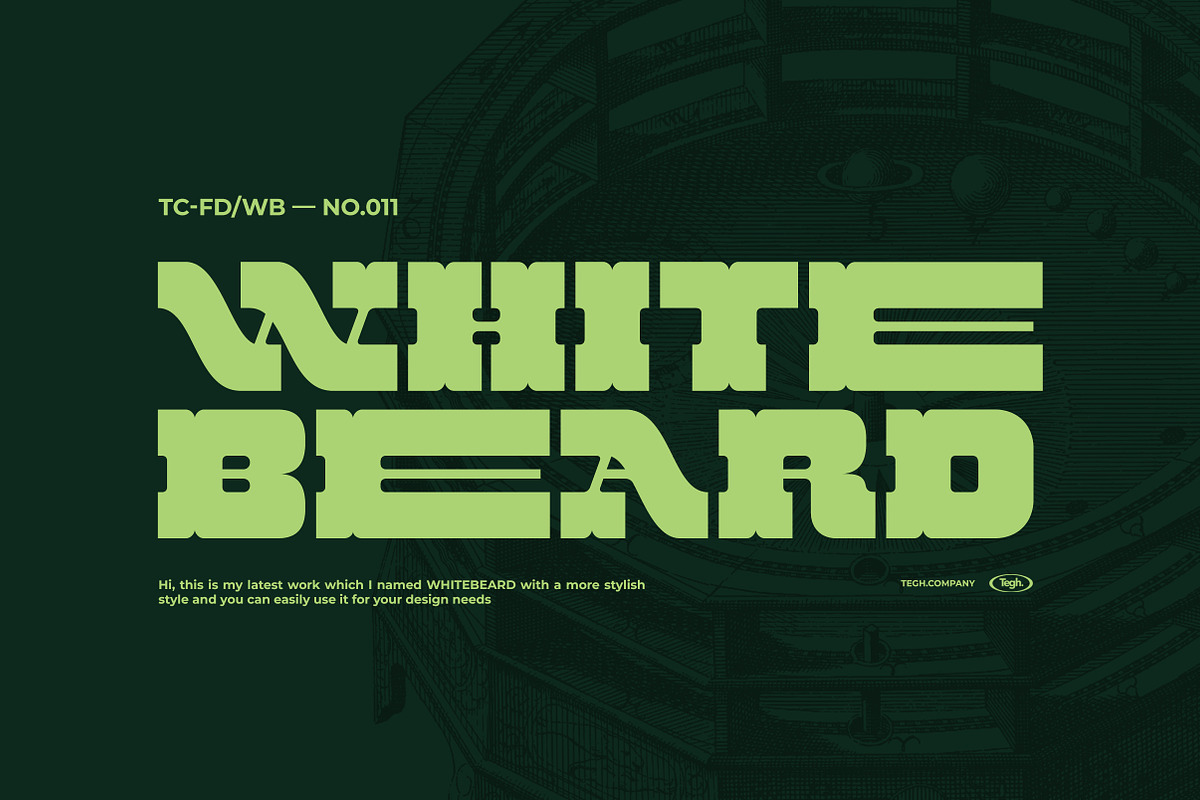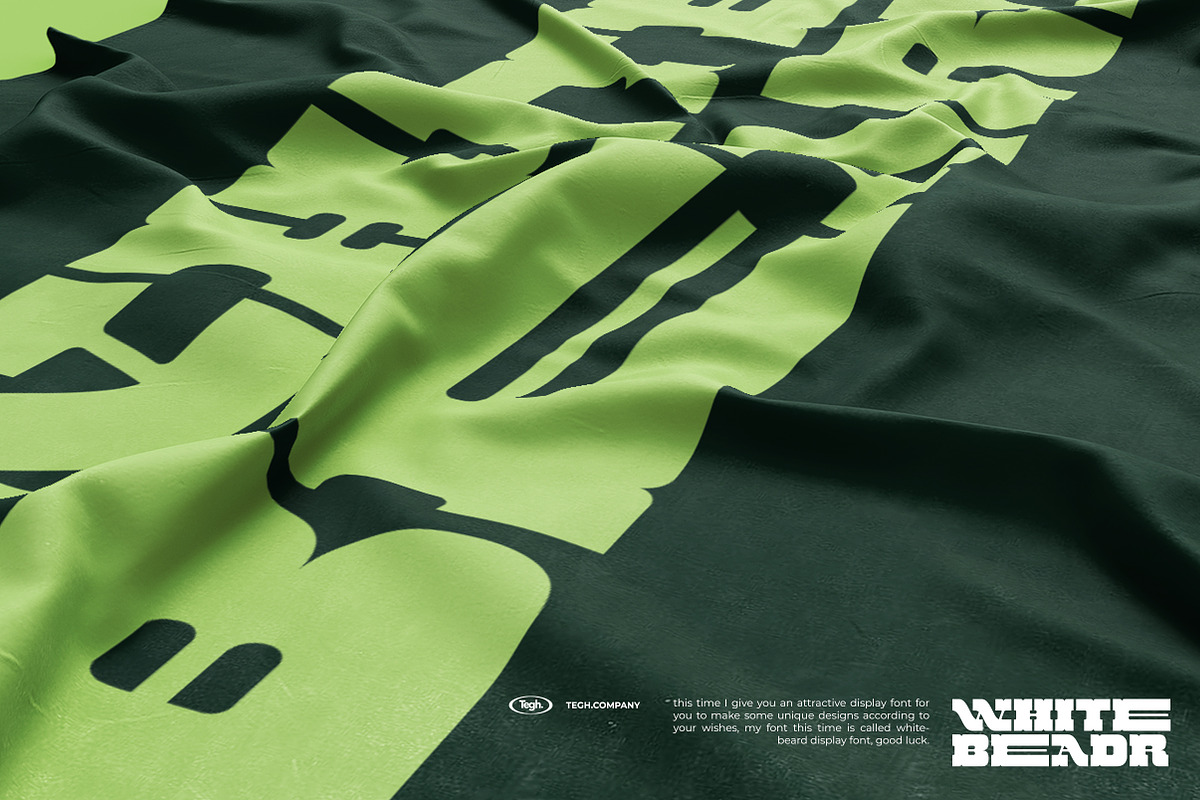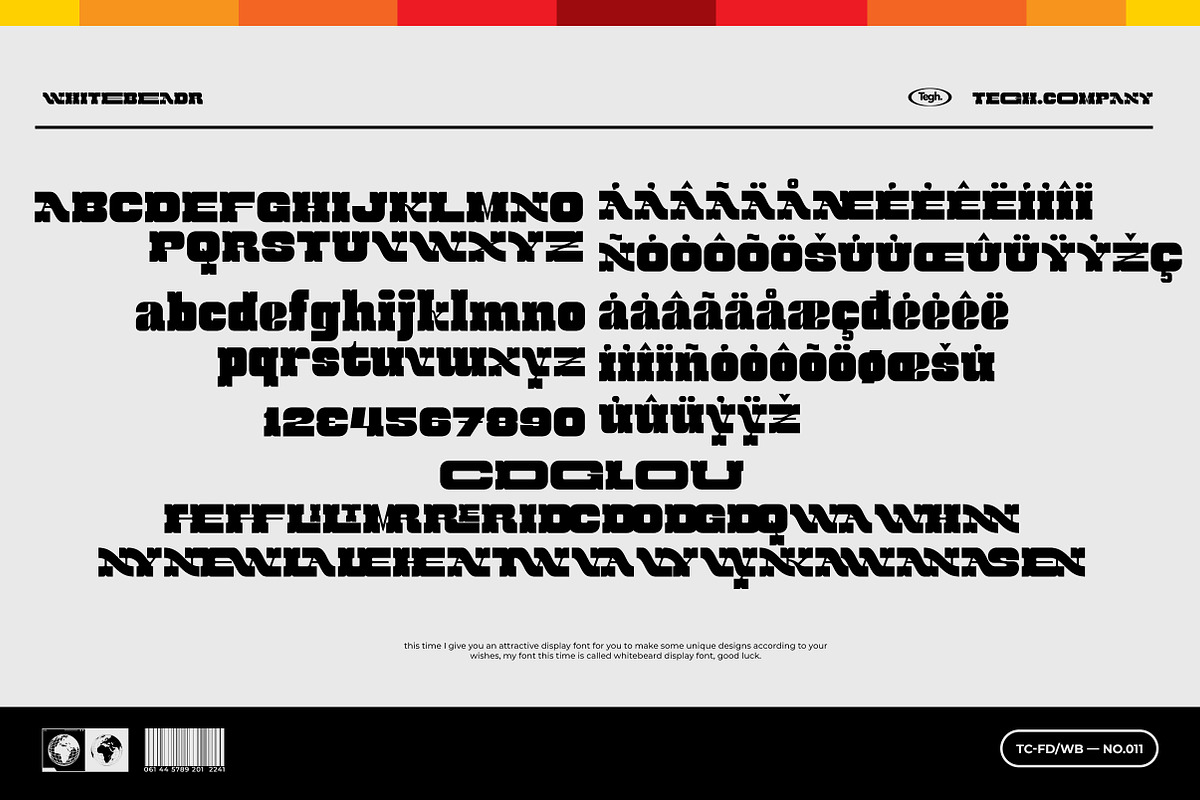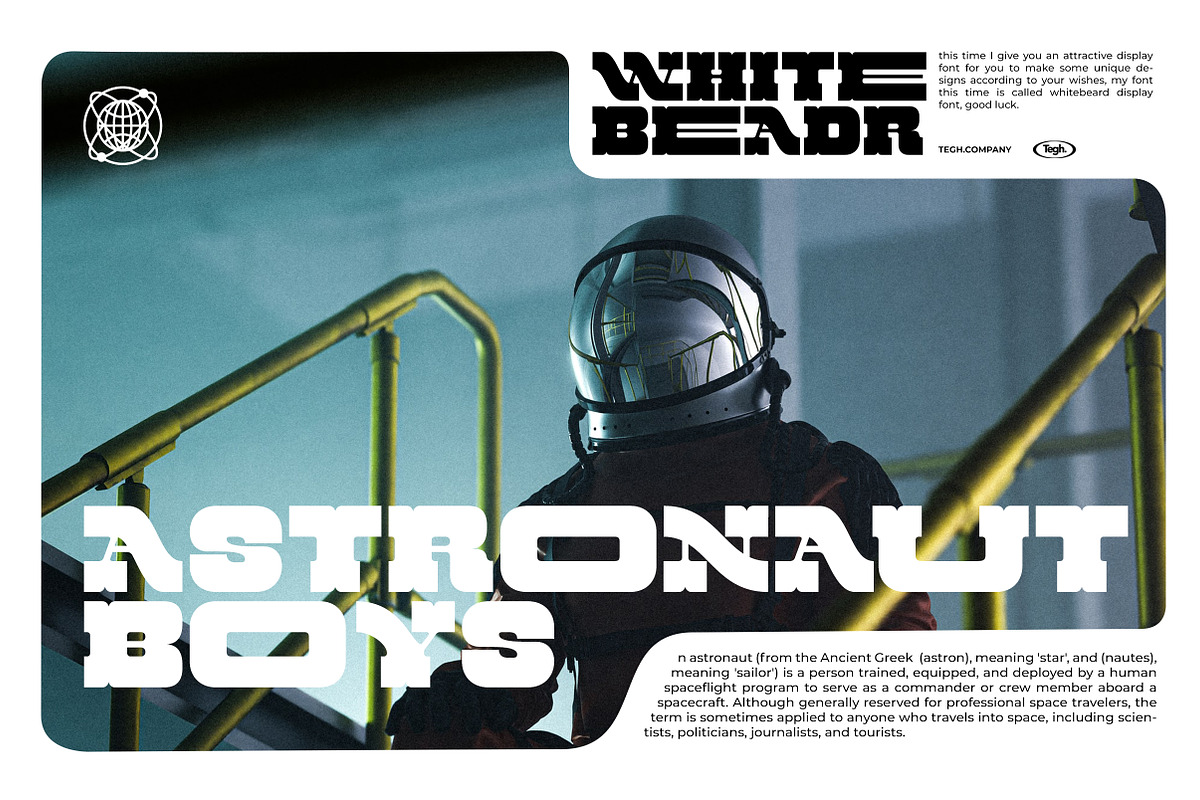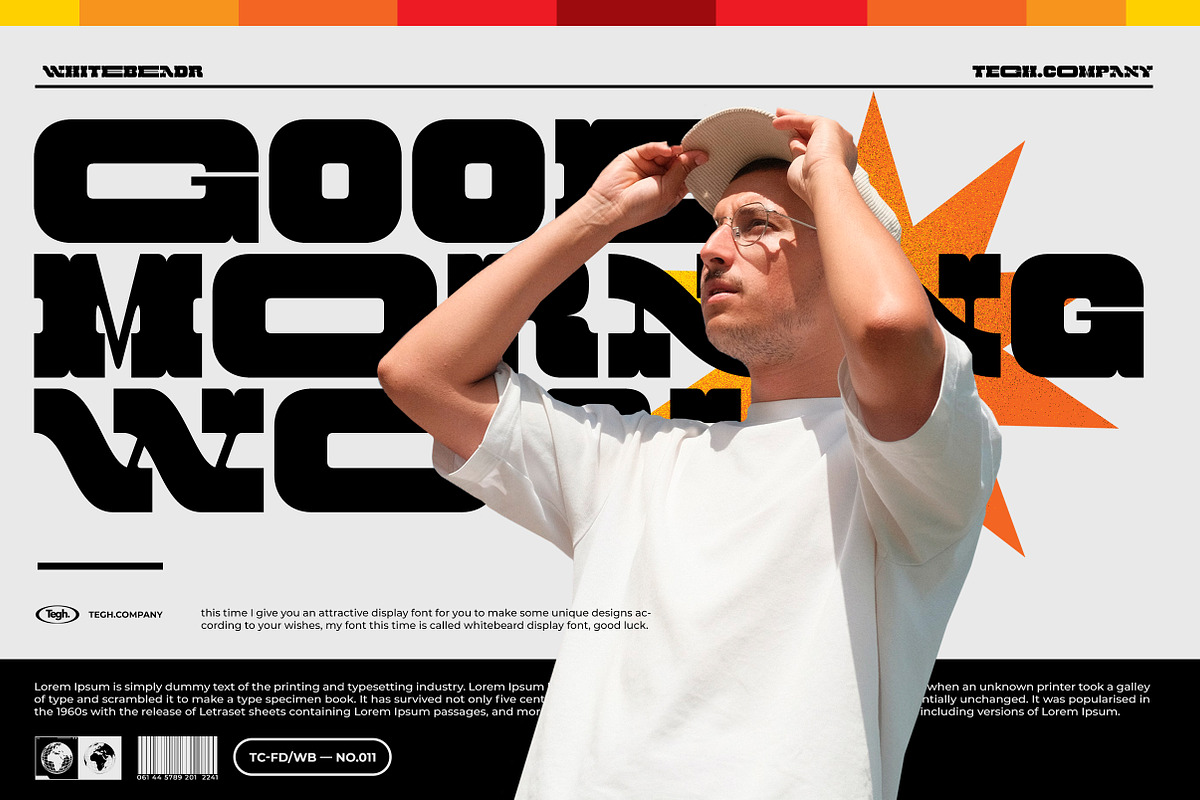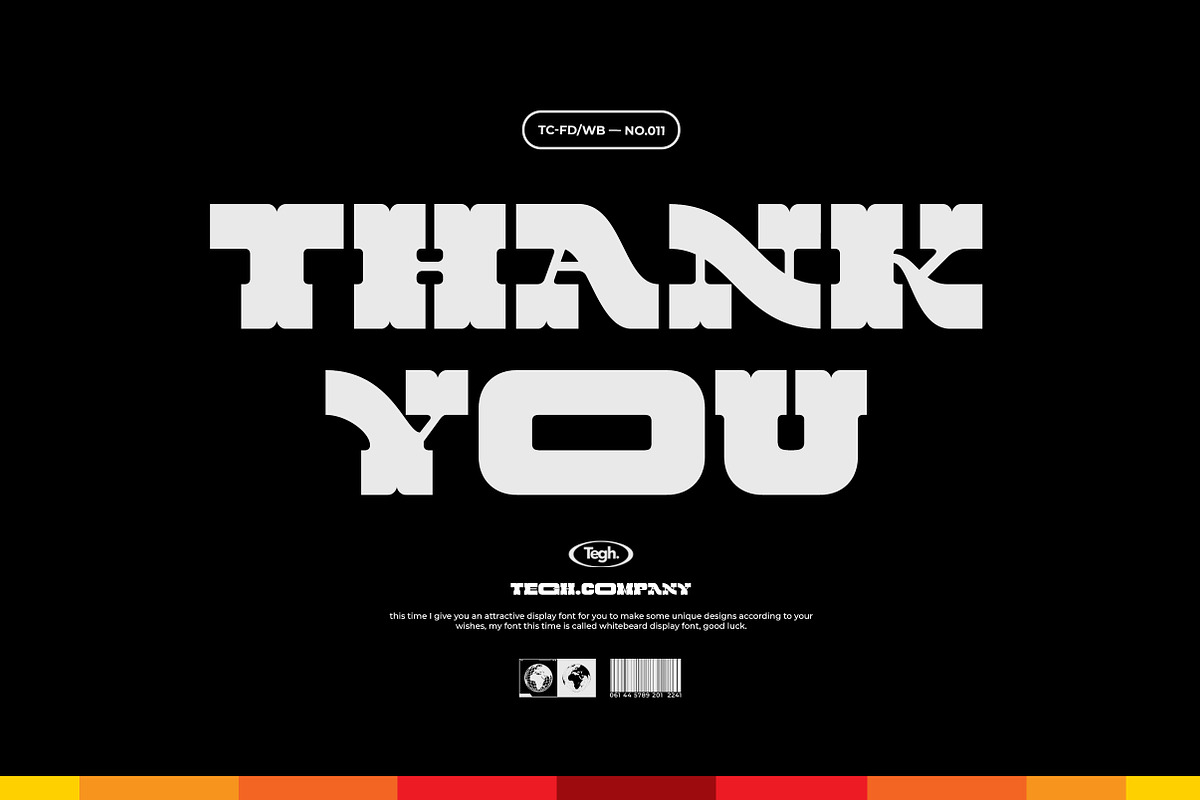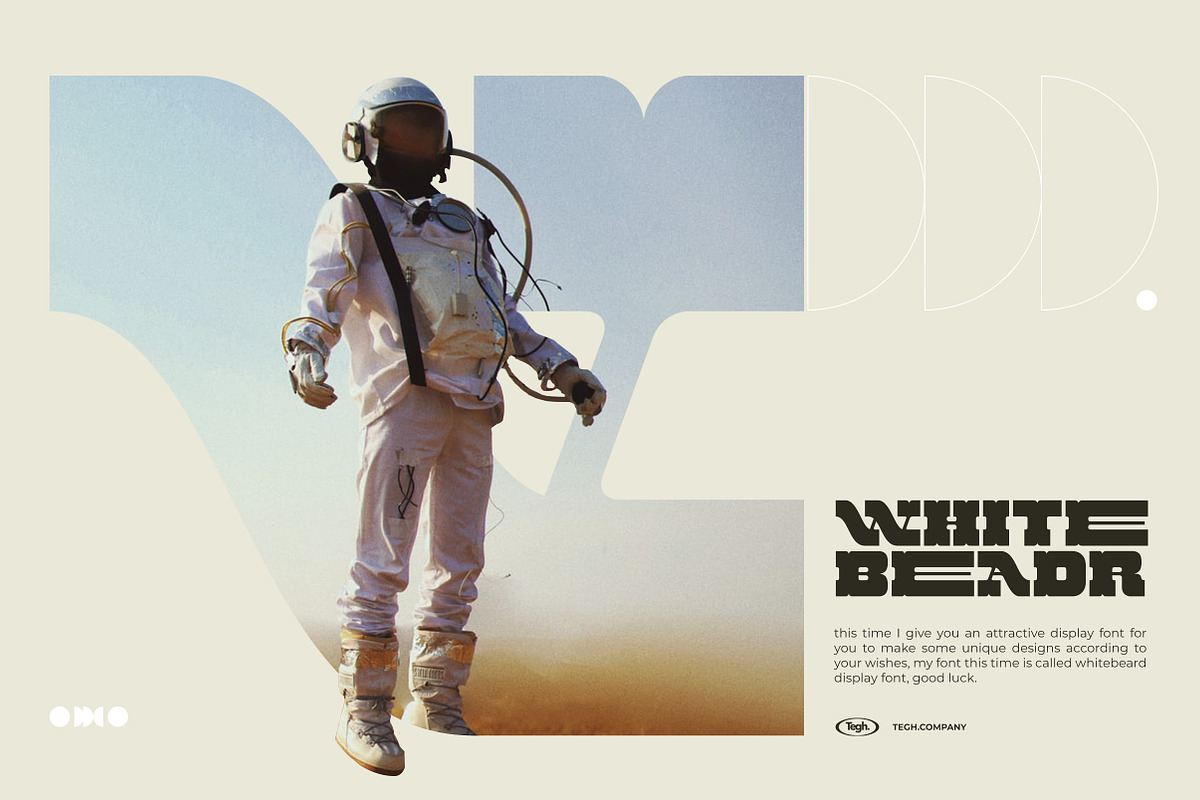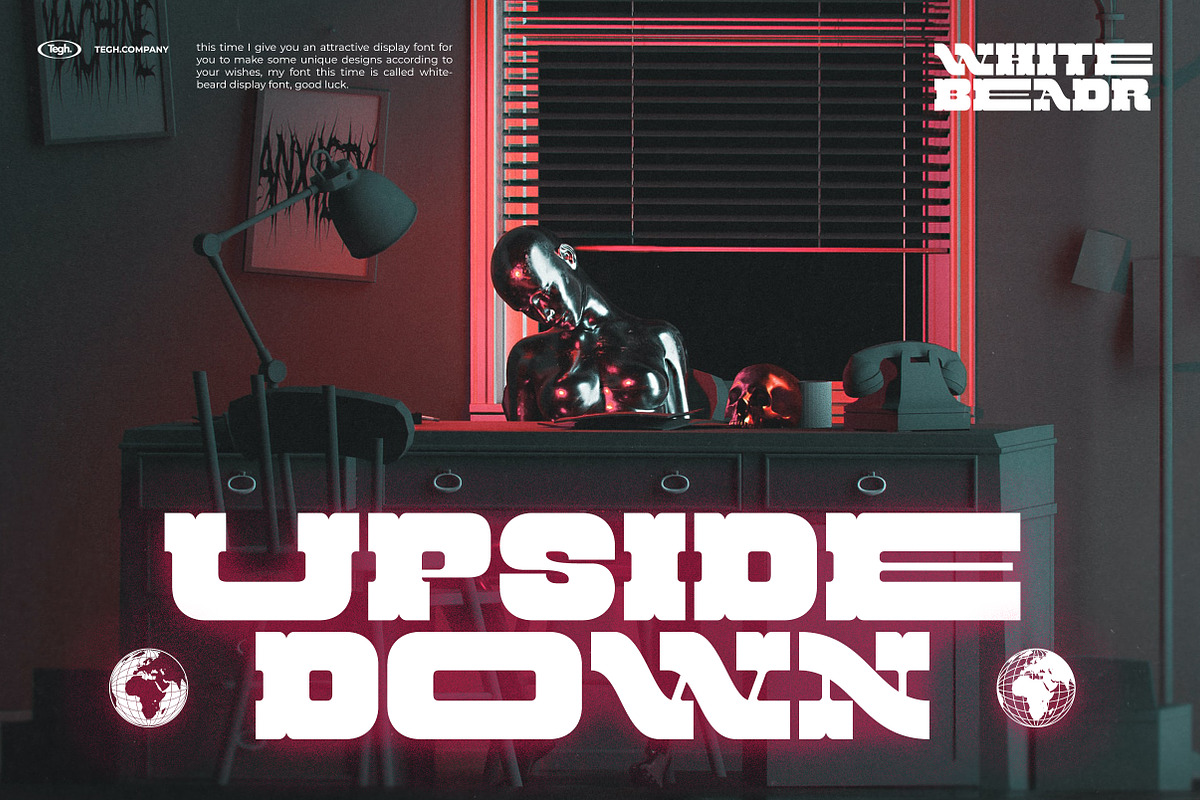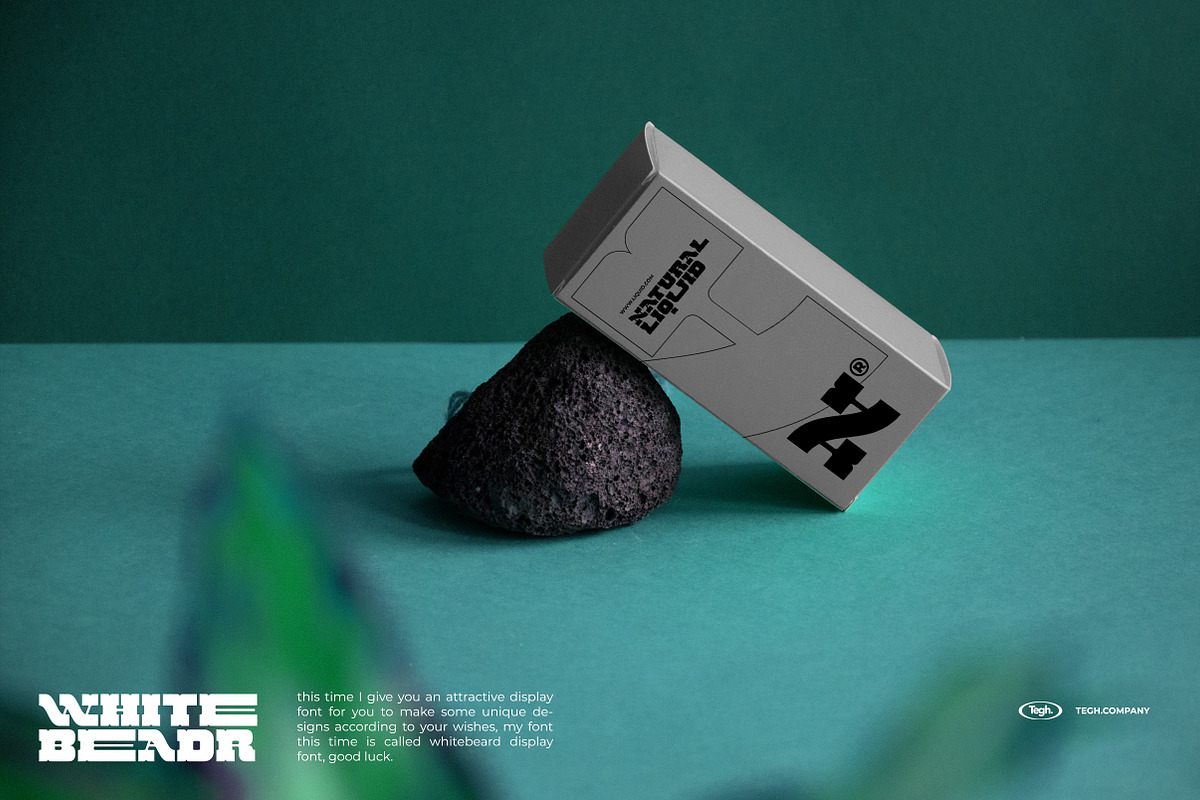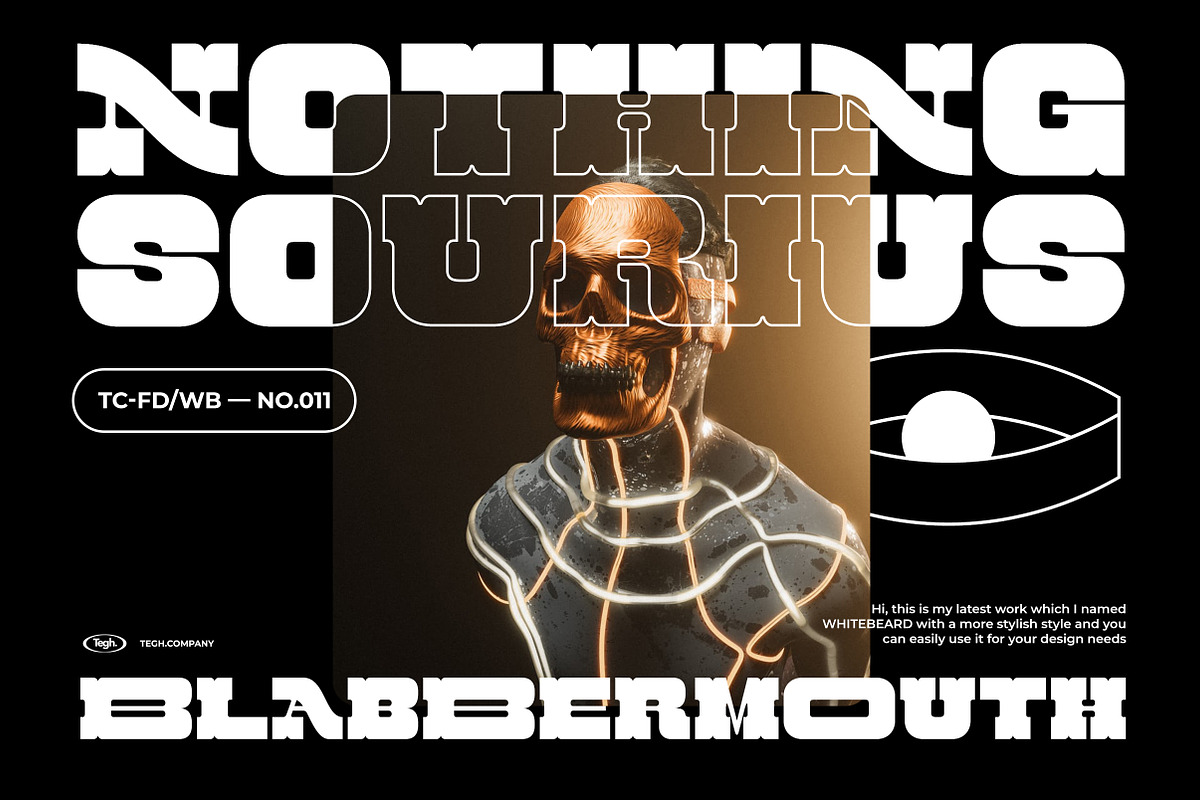
WHITEBEARD DISPLAY
hello, introducing my newest product called whitebeard display, this time I will give you the work of my product which has a unique style in combining modern and classic styles which are like thick fonts and easy to use for you to make designs such as posters, layouts, flayers and others, with this font I'm sure your design will be more unique and fun to look at, this font is available in OTF and TTF forms that you can easily install, good luck!